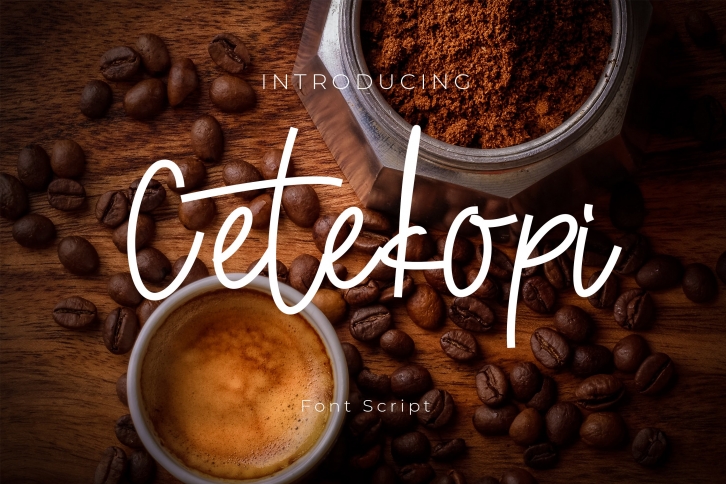
Cetekopi Script is a gorgeous font that was realeased on July 3, 2020. The font can be used in many style contexts and design environments. Perfect for invitations, magazines, websites, logos, and more! It was designed by Dangglem Studio and the file size is 14.98 MB. Thanks for checking out this font!